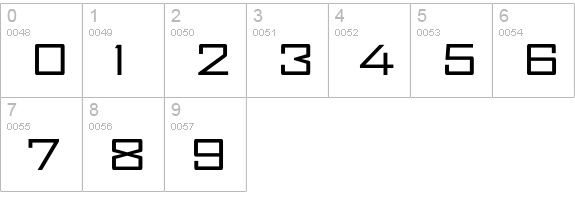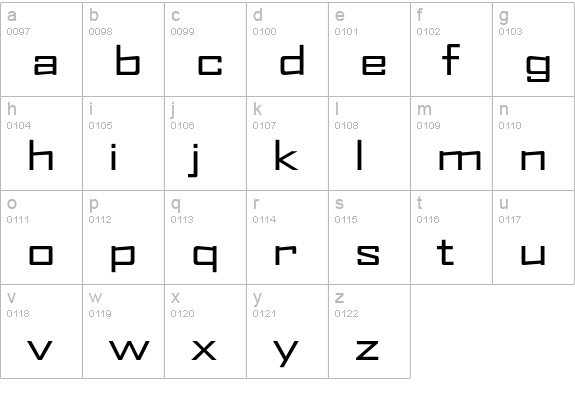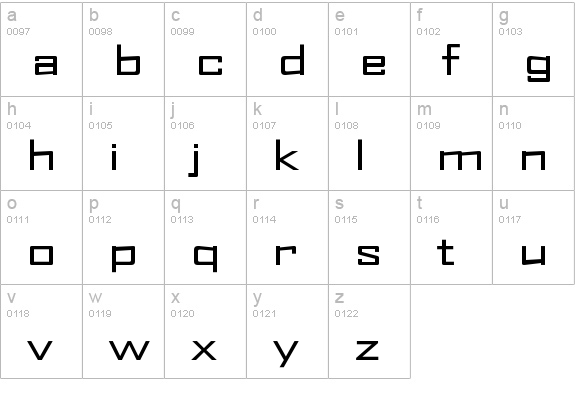
AgencyFB-RegularExtended Font Details
AgencyFB-RegularExtended is a modern and versatile font that combines clean lines with a touch of sophistication. Its extended design provides added impact and visual interest, making it perfect for a wide range of design projects. Whether you're creating sleek corporate materials or eye-catching marketing collateral, this font is sure to make a statement. The best part? AgencyFB-RegularExtended is free to download at FontsMarket.com. With its professional look and easy readability, this font is a valuable addition to any designer's toolkit. Don't miss out on the opportunity to enhance your projects with this stylish and dynamic typeface. Download AgencyFB-RegularExtended today and take your designs to the next level.